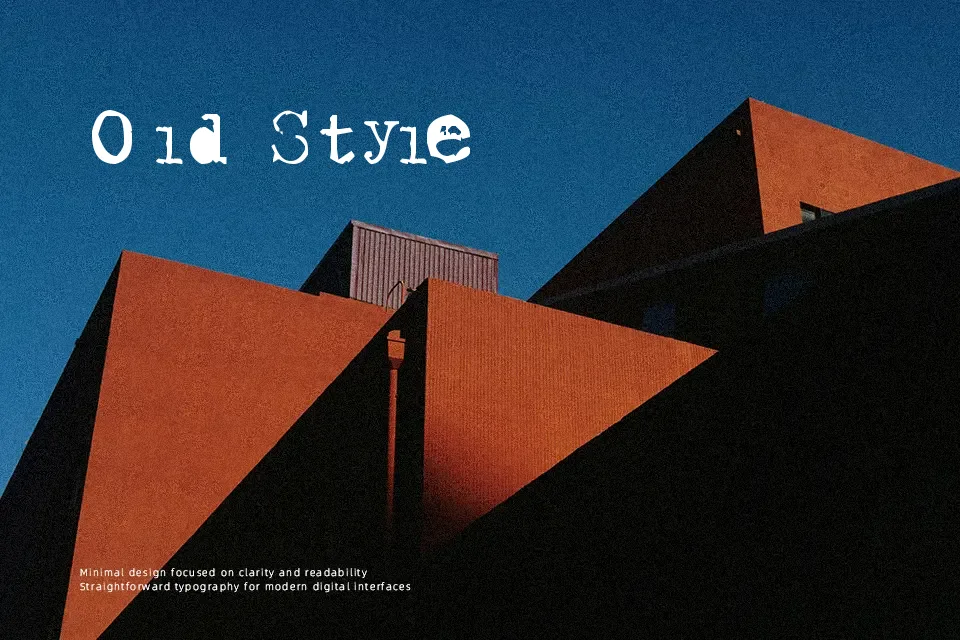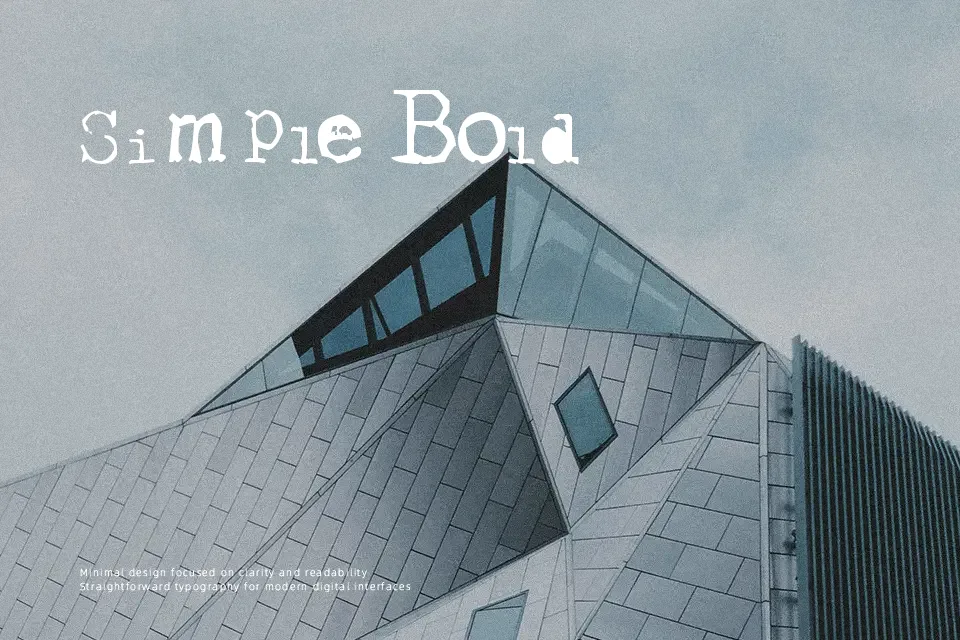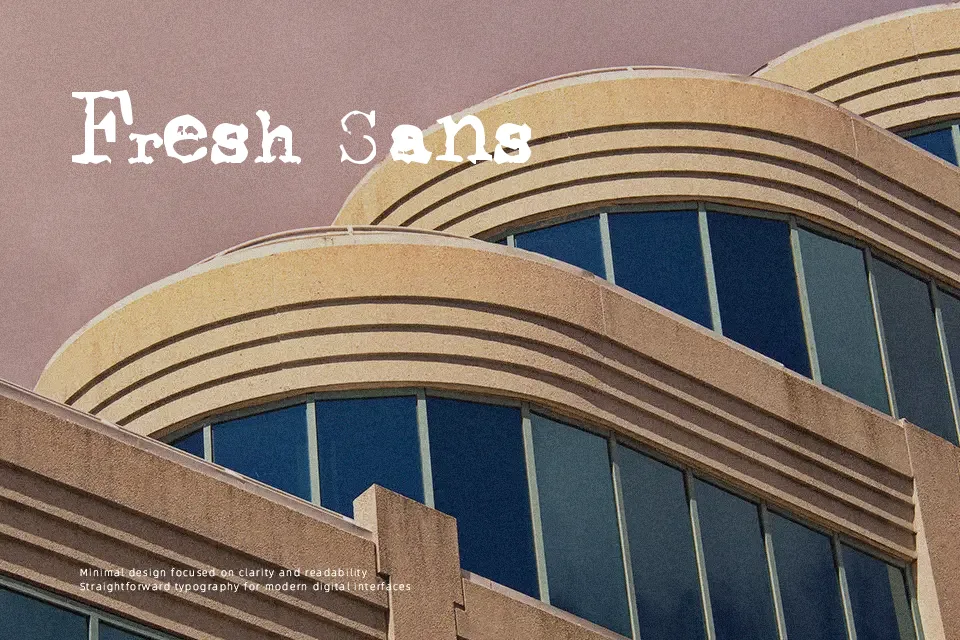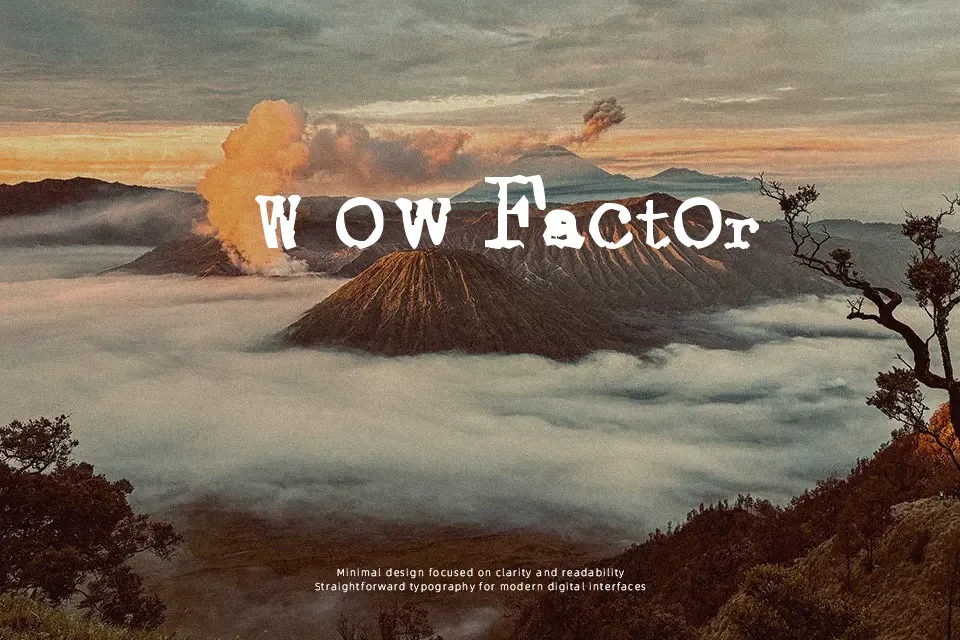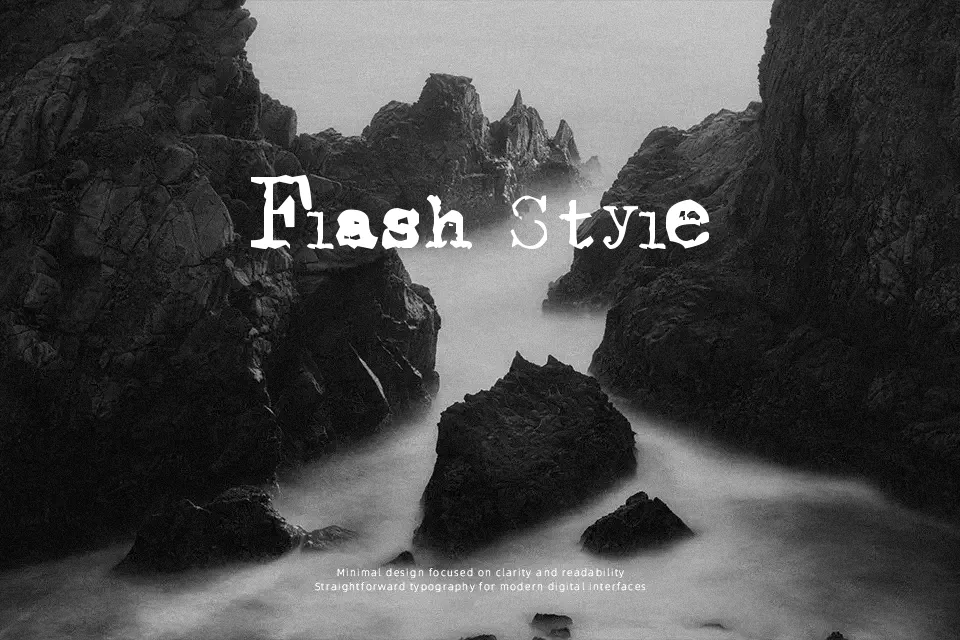
Typewriter from 286 Font
Typewriter from 286 Font features raw, stamped slab letterforms defined by uneven ink bleeding, blunt terminals, and fixed mechanical proportions. The wide character spacing and monospaced rhythm preserve individual glyph shapes across medium display sizes, allowing short phrases to evoke genuine historical document aesthetics. In editorial titles, themed apparel, and rustic product badges, the distressed stroke style provides strong tactile presence. However, the heavy blotches and irregular counters quickly reduce legibility within continuous reading environments. Small captions and multi-page body layouts will suffer from visual crowding, meaning the typeface functions best when restricted to prominent headlines and short decorative statements.
Best For: vintage book covers, retro packaging labels, editorial headlines, apparel graphics
Not Ideal For: long paragraph text, mobile interface labels, dense spreadsheet data, technical manuals
Perfect for branding, editorial, and headline, with a classic and display style.